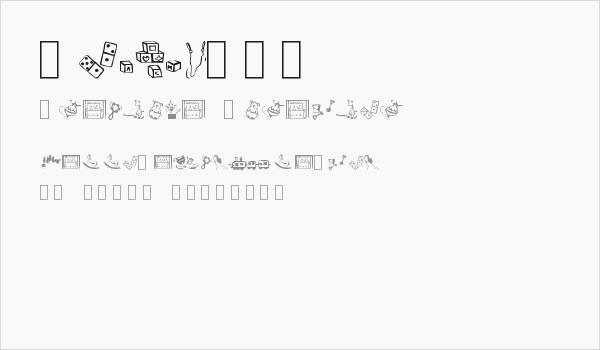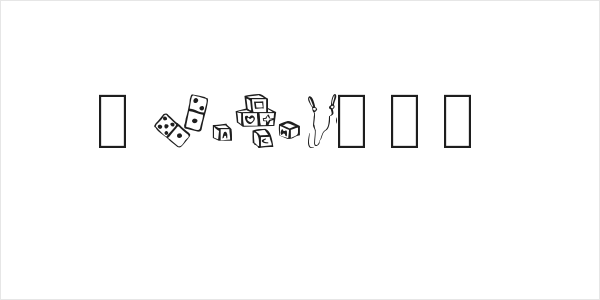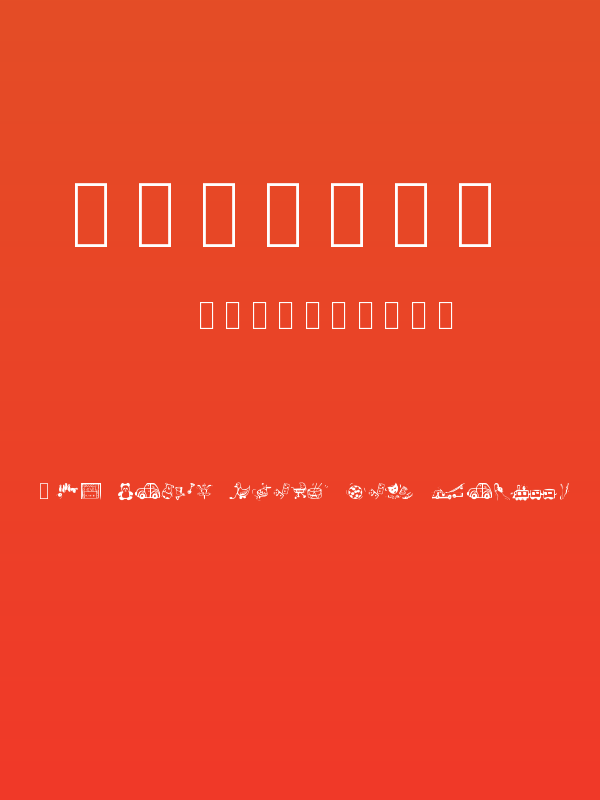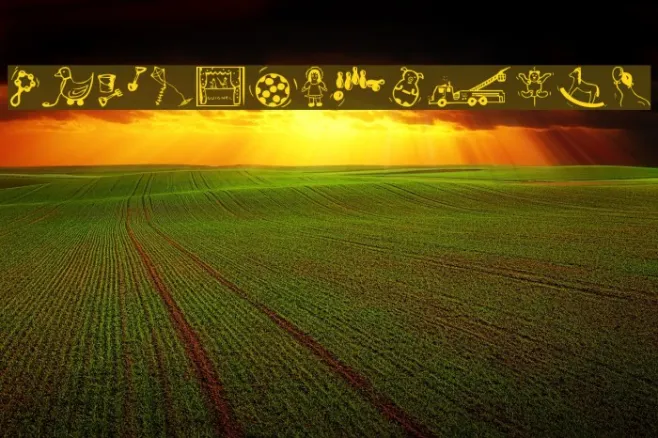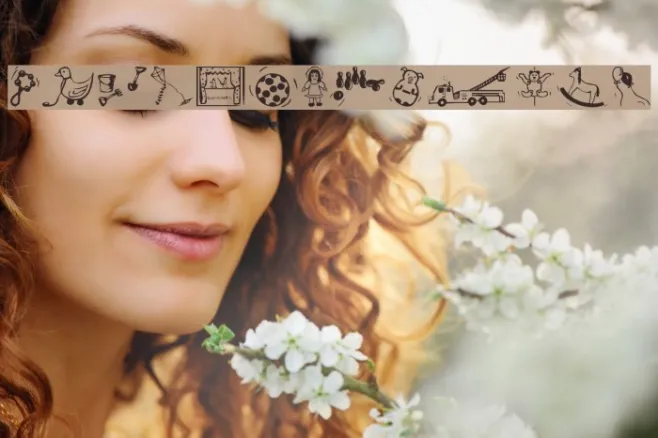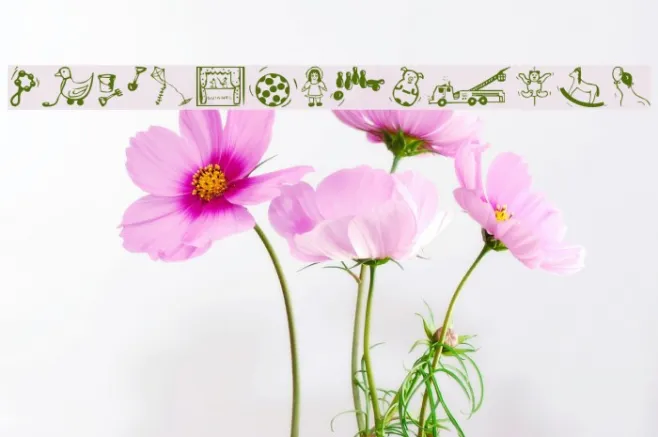
Toys-4U Font
Toys-4U Description
A playful decorative font featuring hand-drawn illustrations of toys and children's items in place of standard alphanumeric characters, with each glyph representing a different toy or playful object.
| Overall Style | Playful, Decorative, Childlike |
| Use Case | Logos, Posters, Themed Headlines, Invitations |
| Proposed Projects | Children's party invitations, toy store branding, educational materials, playful posters, kids' event signage. |